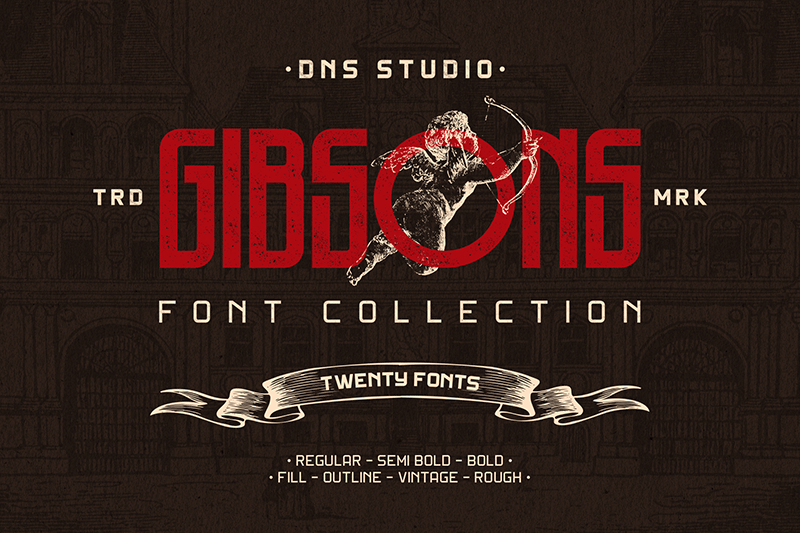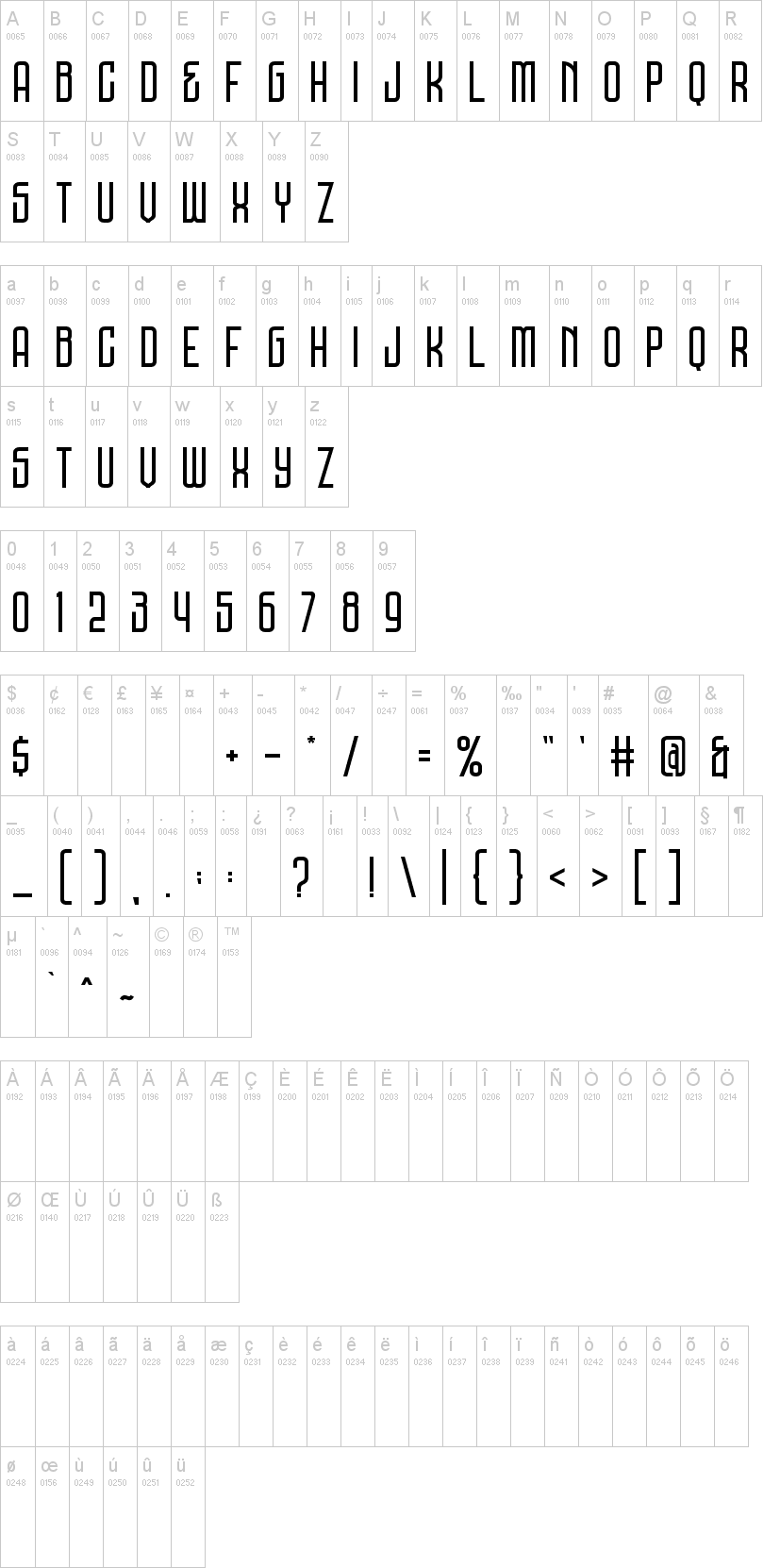
Note of the authorGibsons Font Collection includes 20 fonts on the package. The fonts have two & three weight from regular, semi-bold, and bold version. And what a great news is every weight have 4 styles fill (of course), outline, vintage (rough edge) and rough (textured). The font perfectly paired, a tall font combined with short font is the best combination. We also do not forget to add alternate character for the feature.